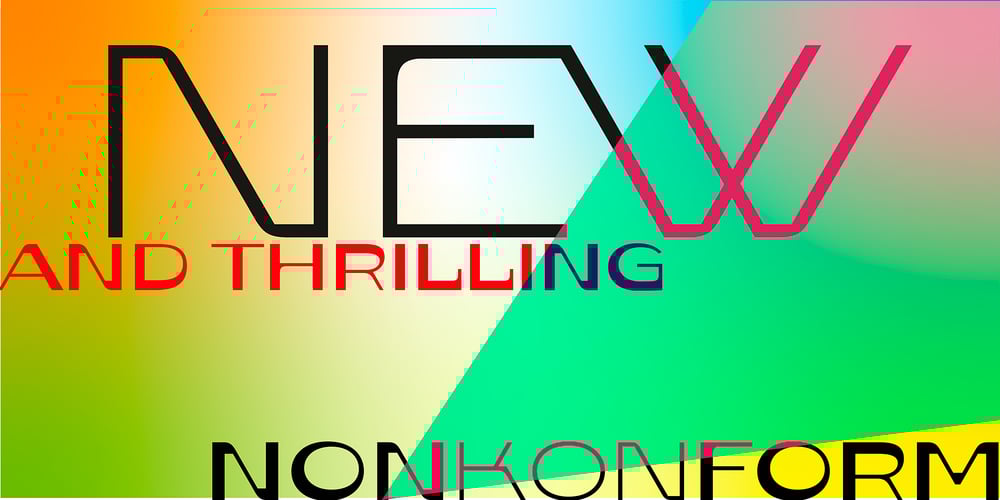
Nonkonform Font Family was designed by Hartmut Schaarschmidt and published by SD Fonts. Nonkonform contains 9 styles and family package options. Design is an exciting discipline in which the audience has to be triggered with new small surprises constantly, and so typography, as a very important part of design, has to contribute, too. The spirit of the times demands new forms, new combinations and new rules in our typographical work. Nonkonform, the German word for »not conforming« , responses to this need as a display font that breaks with old rules to set fresh, new accents, without sacrificing readability or aesthetics. Nonkonform deliberately stages itself to become the eye-catcher that boosts the message to be told.